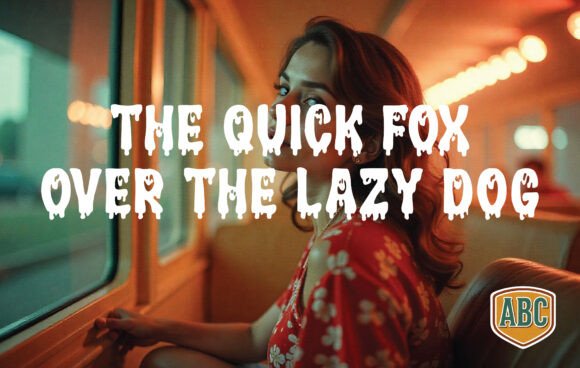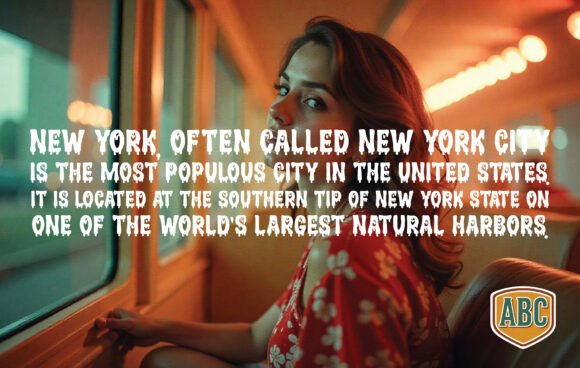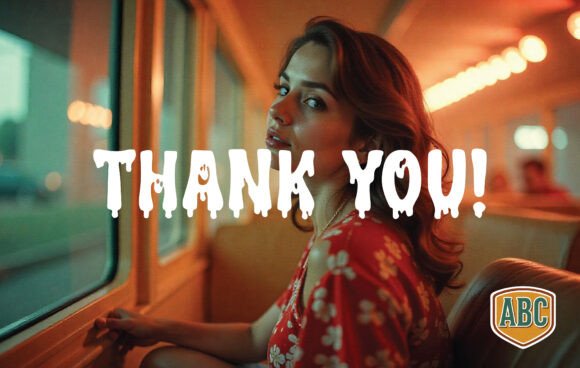
Introducing the Forever Font: A Delightful Journey into Whimsy and Playfulness
In the world of typography, fonts can evoke emotions, convey personalities, and set the tone for a brand or design. The Forever font is a handwriting-style typeface that embodies the essence of fun, quirkiness, and playfulness. Its unique, dripping details and melted aesthetics make it an ideal choice for designers and crafters looking to add a touch of whimsy to their projects.
The Characteristics of the Forever Font
The Forever font features distinctive, hand-drawn letterforms that resemble soft wax or melting ice cream. Each character is carefully crafted to exude a sense of joy and high-energy, making it perfect for youth-oriented brands, dessert shops, or creative event branding. The font’s bold and playful nature makes it an excellent choice for headlines, titles, and display text.
Perfect Applications for the Forever Font
The Forever font is incredibly versatile and can be used in a variety of design projects. Some of the most suitable applications include:
- Birthday Party Invitations: Add a touch of playfulness to your party invites with the Forever font. Its fun and quirky nature will set the tone for a memorable celebration.
- Summer Festival Graphics: Capture the essence of summer with the Forever font. Its bright and cheerful vibe is perfect for festival posters, flyers, and social media graphics.
- Candy Packaging: Make your sweet treats stand out with the Forever font. Its whimsical nature will add a touch of magic to your packaging design.
- Creative Event Branding: Use the Forever font to create eye-catching event branding, such as posters, banners, and merchandise.
Design Tips for Using the Forever Font
To get the most out of the Forever font, consider the following design tips:
- Pair with Bright Colors: Maximize the font’s “fun” factor by pairing it with bright, saturated colors. This will create a visually appealing contrast that will grab the audience’s attention.
- Use as a Display Font: The Forever font is bold enough to be used as a primary display font on posters, making it perfect for headlines and titles.
- Mix with Other Fonts: Experiment with pairing the Forever font with other fonts to create a unique and visually appealing typography combination.
The Benefits of Using the Forever Font
The Forever font offers several benefits for designers and crafters, including:
- Instant Playfulness: The Forever font instantly injects a sense of playfulness into your design, making it perfect for projects that require a touch of whimsy.
- Friendliness and Accessibility: The font’s hand-drawn nature keeps it feeling friendly and accessible, making it an excellent choice for brands that want to connect with their audience.
- Versatility: The Forever font is incredibly versatile and can be used in a variety of design projects, from digital graphics to print materials.
The Forever font is a delightful journey into the world of whimsy and playfulness. Its unique, dripping details and melted aesthetics make it an ideal choice for designers and crafters looking to add a touch of fun to their projects. With its bold and playful nature, the Forever font is perfect for youth-oriented brands, dessert shops, or creative event branding. So why not give it a try and inject a sense of playfulness into your next design project?